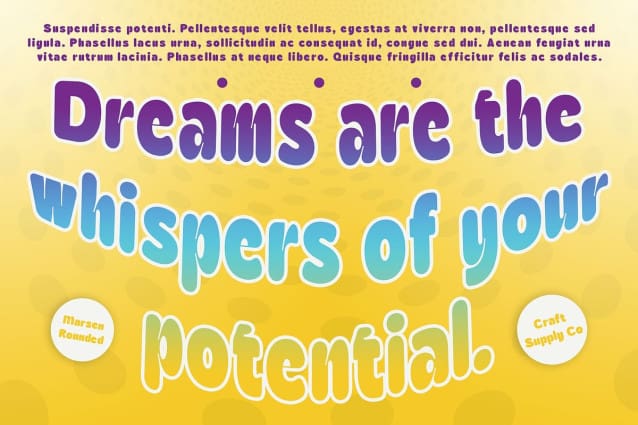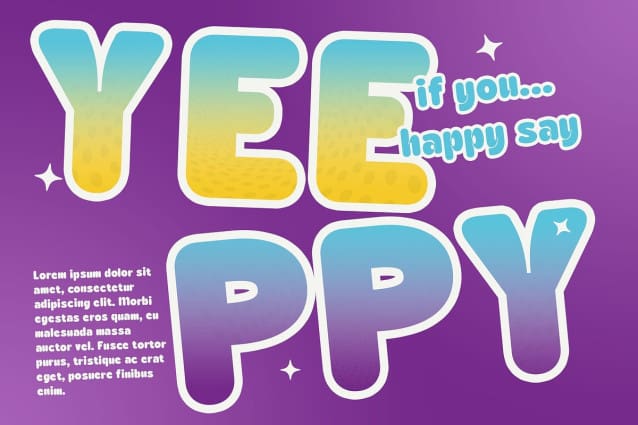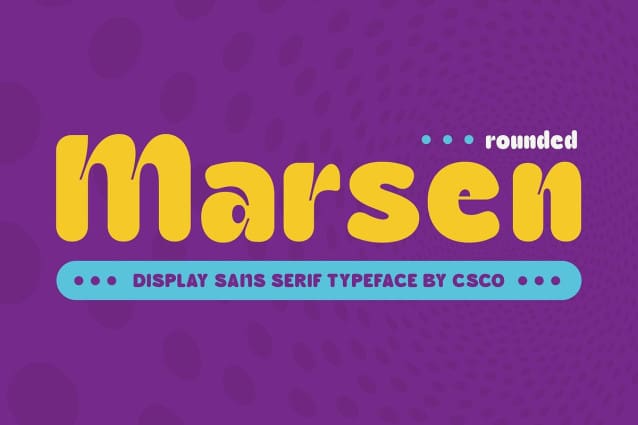
Marsen Rounded Font
Marsen Rounded Font is a modern sans serif font that features thick, rounded shapes combined with innovative inktrap designs, capturing a cute and funky 90s vibe. Its bold, rounded form not only creates a cheerful impression but also ensures high visibility, making it an excellent choice for lively and engaging designs. The rounded edges soften the overall look, giving the font a friendly demeanor that draws the viewer in.
Unique Dynamic Element The inktrap details add a unique and dynamic element to Marsen Rounded, enhancing its visual interest and creating an engaging interplay between light and shadow. This clever design feature allows for smoother transitions between strokes, ensuring that the font maintains clarity even at smaller sizes. The combination of thick shapes and intricate features guarantees that Marsen Rounded stands out in any creative project, delivering a playful yet polished aesthetic that is sure to capture attention.
Perfect for Creative Projects Ideal for a variety of creative applications, including posters, branding, and children’s designs, this font infuses a sense of fun and excitement into any project. Its whimsical character is perfect for materials that aim to captivate and engage audiences, whether for promotional campaigns, event flyers, or product packaging.